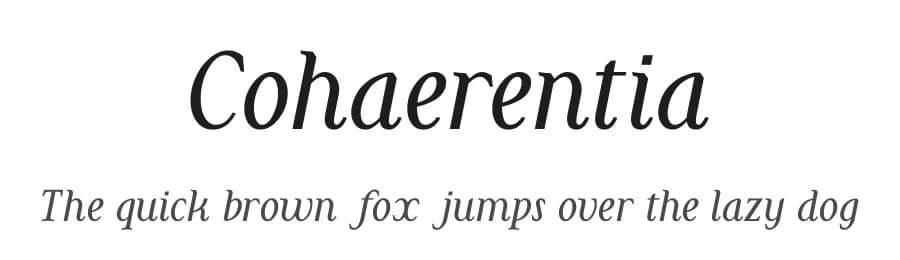
About Cohaerentia Font
Cohaerentia is a font created chiefly in order to balance as possible graphic coherence and expressive freedom.
Cohaerentia supports 295 languages.